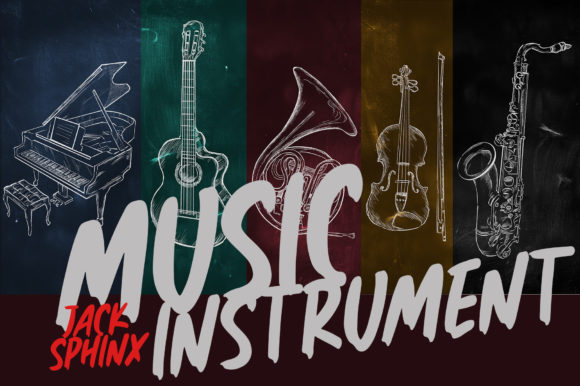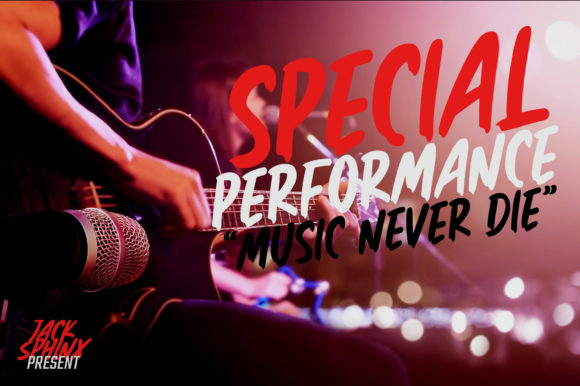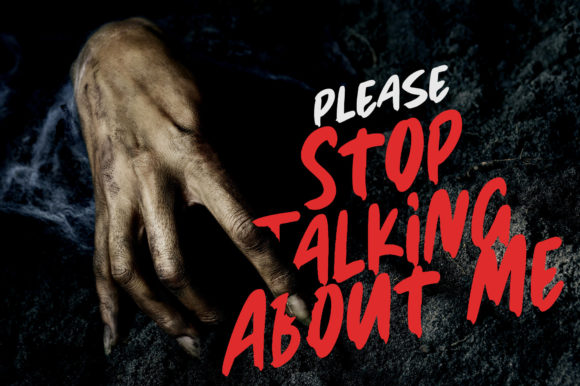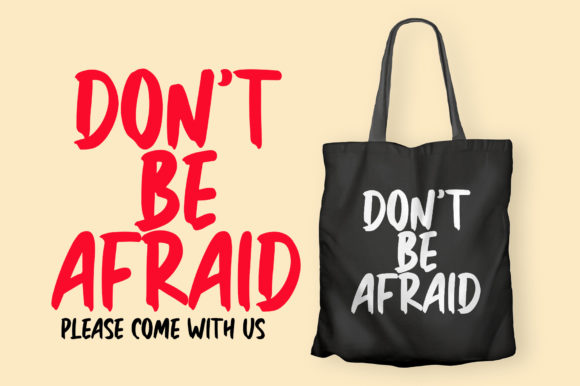
Jack Sphinx Font
Jack Sphinx Display Font
It’s an awesome, bold styled display font that has a street art vibe. This font is suitable for designs such as t-shirts, sportswear, logos, advertisements, clothing, and more.